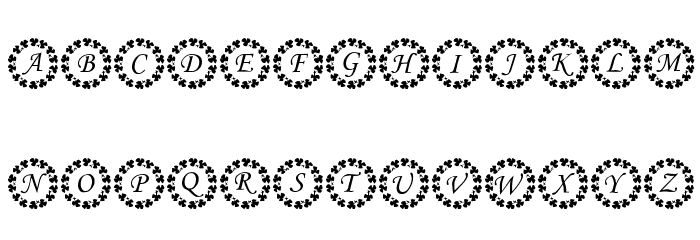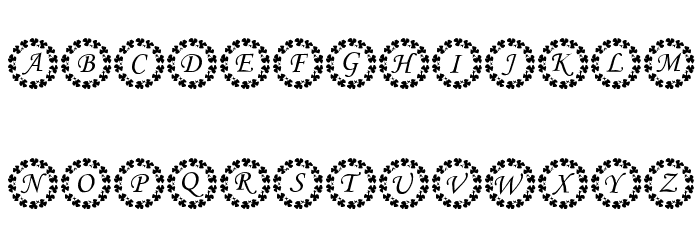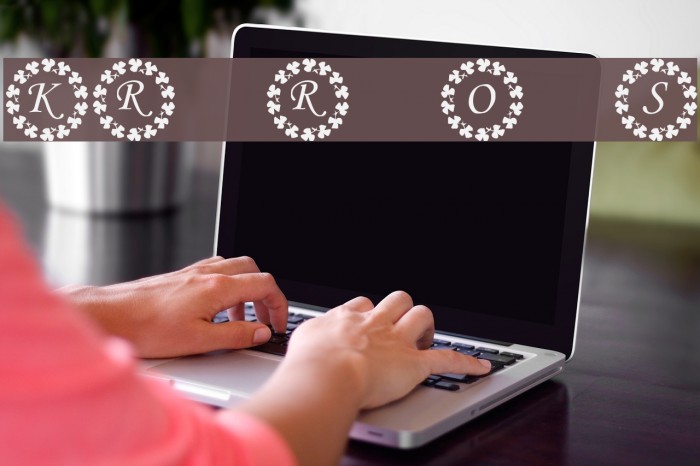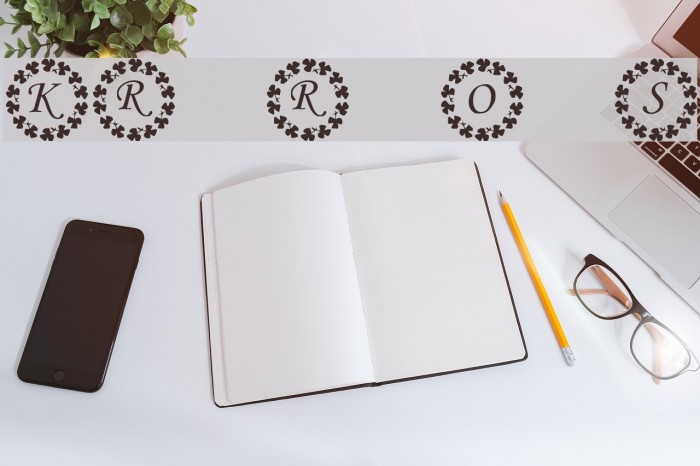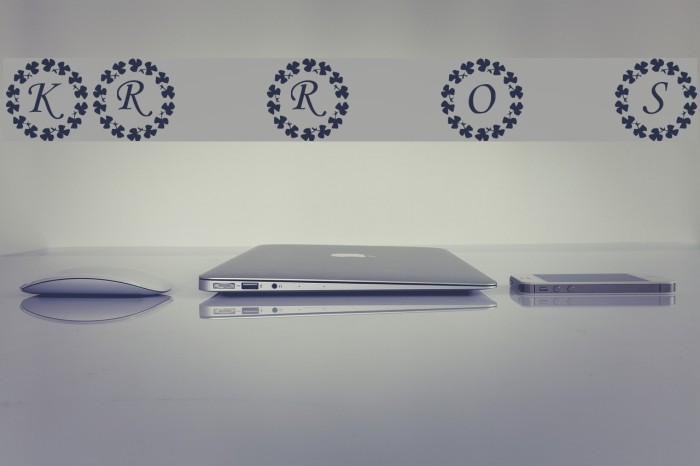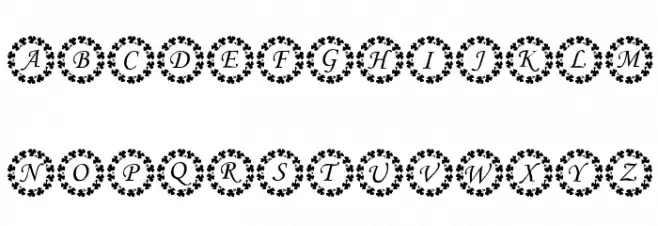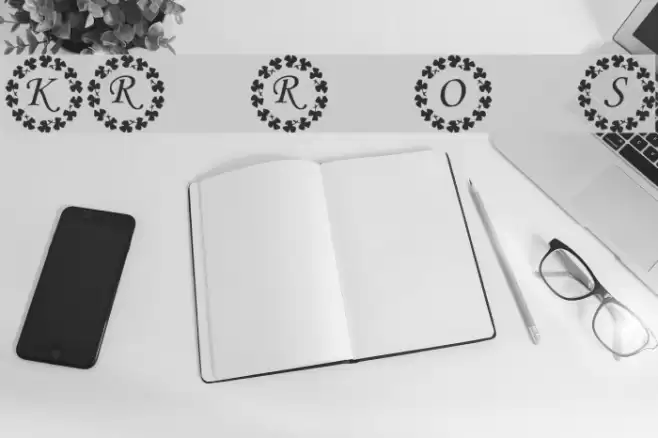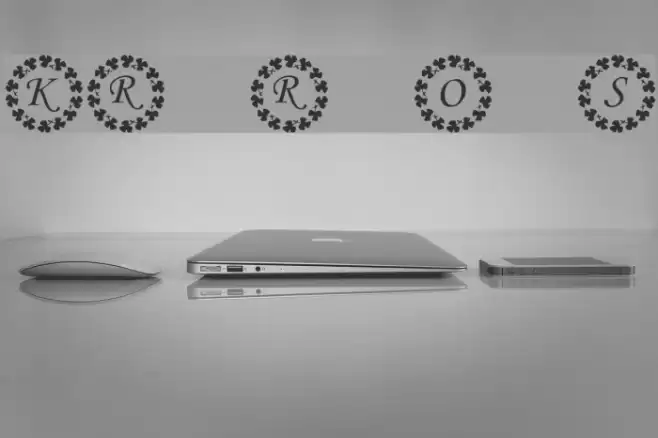
KR Ring O' Shams Font
This decorative font features each character encased within a circular border adorned with floral patterns. The letters themselves are serif, with elegant curves and a classic style. The combination of the intricate border and the serif lettering gives it a unique, ornamental appearance. This font is ideal for projects that require a touch of elegance and sophistication, such as invitations, greeting cards, or decorative signage. The floral motif adds a whimsical and vintage feel, making it suitable for creative and artistic applications.
A decorative serif font with floral-bordered characters, ideal for elegant designs.
- Proposed Projects: Invitations, greeting cards, decorative signage, artistic projects.
- Overall Style: Vintage, Decorative
- Use Case: Headlines, Decorative text